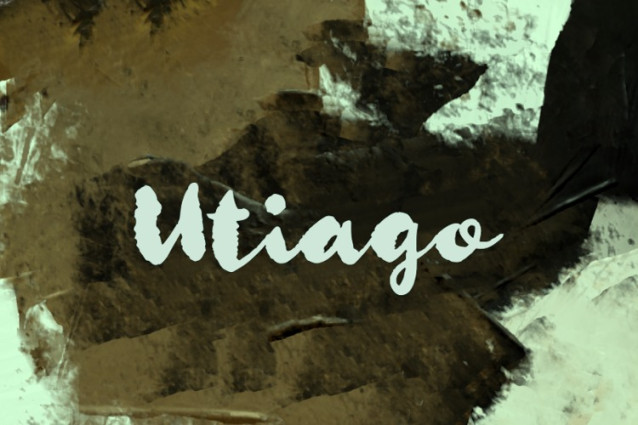
Utiago Font
Utiago Font, perfectly fit for branding, logo, wedding things, greeting cards, fashion, lookbook, marketing promotion, anytime you want to look fancy elegant but still casual.